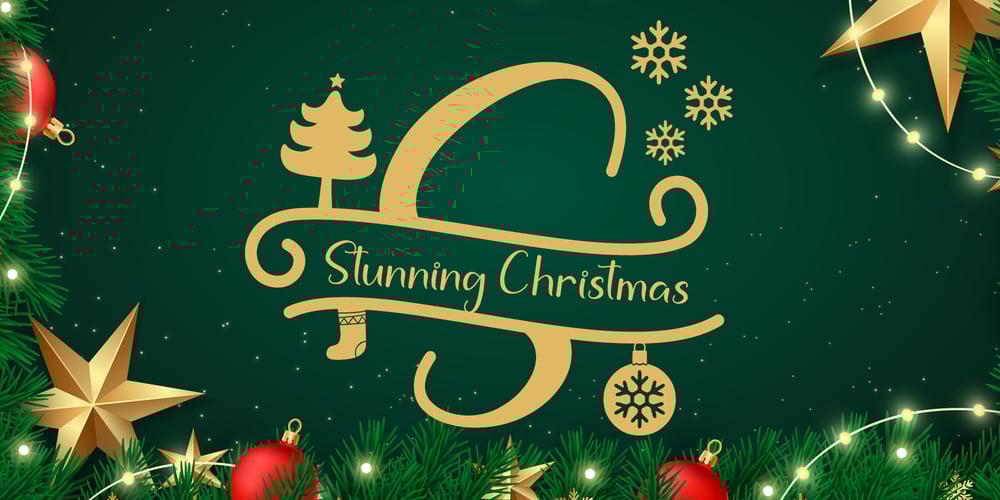
Stunning Christmas Monogram Font Family was designed by Agung Eko Nugroho and published by AEN Creative Studio. Stunning Christmas Monogram contains 2 styles and family package options. Stunning Christmas Monogram is a stunning and comprehensive duo font (display and decorative), ideal for giving your projects a branded but friendly feel. The two included styles can be combined together perfectly but are also beautiful on their own.